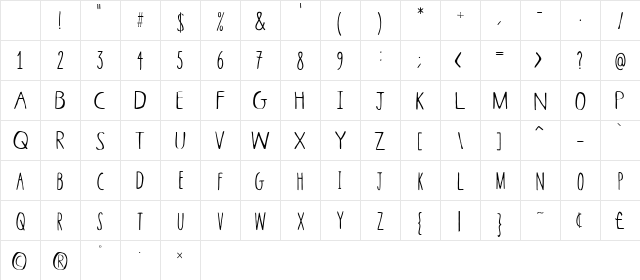
Complete Gaunt Skinny glyph index. Displaying only characters natively supported by Gaunt Skinny font.
Gaunt is a composed and adaptable typeface that performs quietly and consistently across a wide range of design contexts.